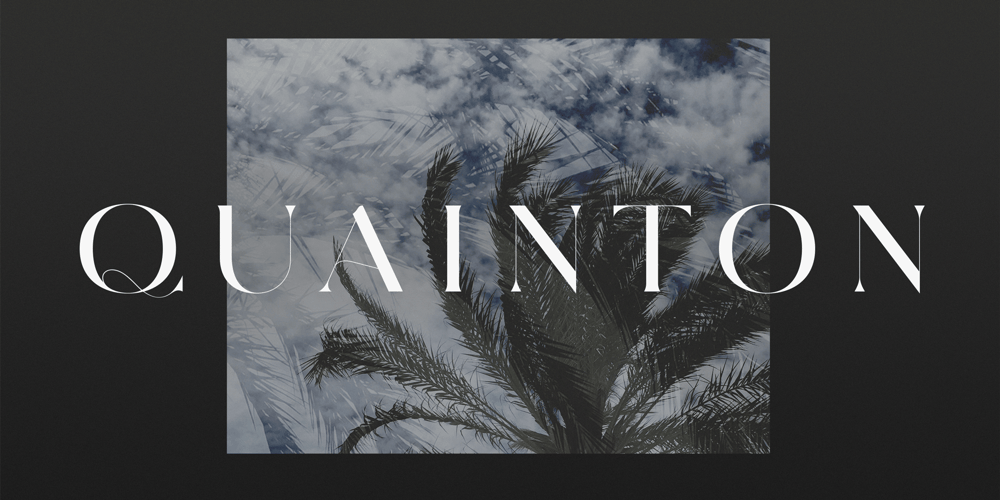
SD Quainton
SD Quainton font
SD Quainton Font Family was designed by Jonathan Quainton and published by Sawdust. SD Quainton contains 1 styles and family package options. SD Quainton was created in 2016 by Jonathan Quainton the co-founder of graphic design studio Sawdust. With a harmonious blend of Didone and Bauhaus elements Quainton embarks on a fresh and innovative direction.Drawing inspiration from revered typefaces like Bodoni and Didot, SD Quainton evokes the same sense of awe that captivated its creator. Designed with specific contexts in mind, SD Quainton finds its perfect home in the realms of fashion, retail, and premium products, where its captivating charm can truly shine. Although ideally suited for eye-catching headlines and titles due to its delicate strokes, the possibilities of where this remarkable typeface may find its place are as limitless as the designer’s imagination.